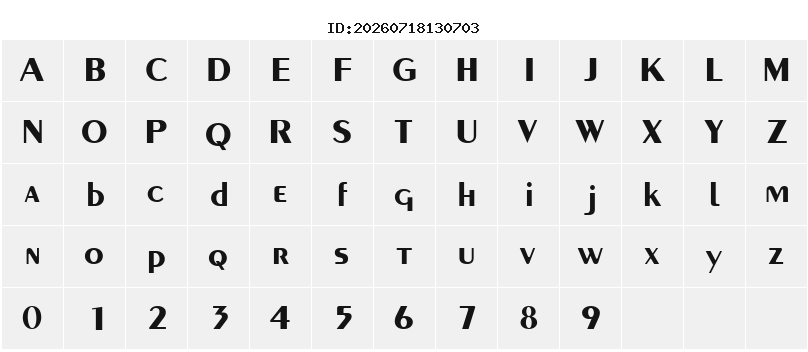
Carnati SSi Preview
• Font Name: Carnati SSi
• Full Font Name: Carnati SSi Bold
About Carnati SSi.ttf
Carnati SSi.ttf is a modern, elegant sans-serif font designed for ultimate readability and visual harmony. Perfect for branding, headlines, web design, and print materials.